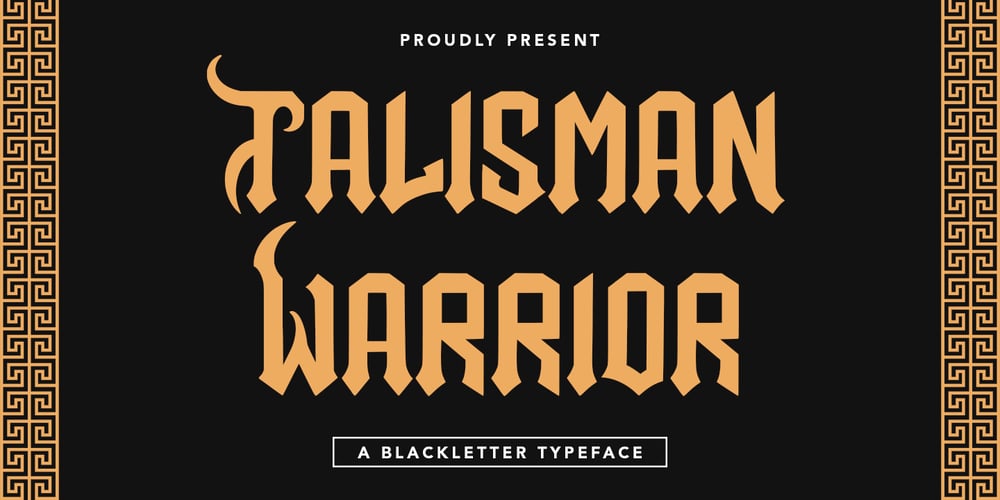
Talisman Warrior Font Family was designed by Asep Rendi and published by Hatftype. Talisman Warrior contains 1 styles and family package options. This is a blackletter display font with additional ornaments inspired by gothic and horror metal styles because its shape is very unique and very suitable for any project you will use with this theme.Features :* Symbol * Number * Alternate * Punctuation * Multilingual support * Support in Mac and Windows OS * Support in design application (photoshop, illustrator, and more)I really hope you enjoy it.